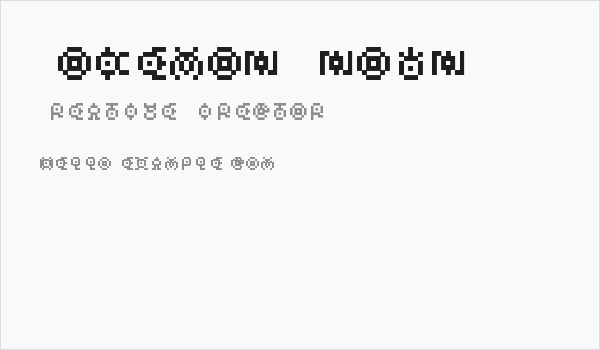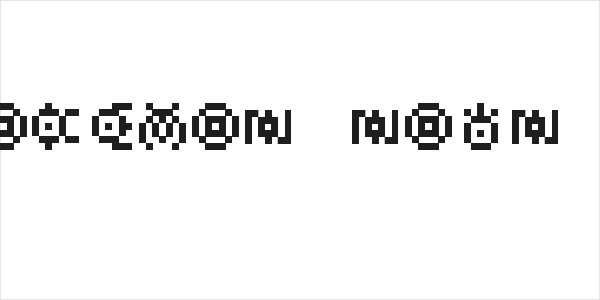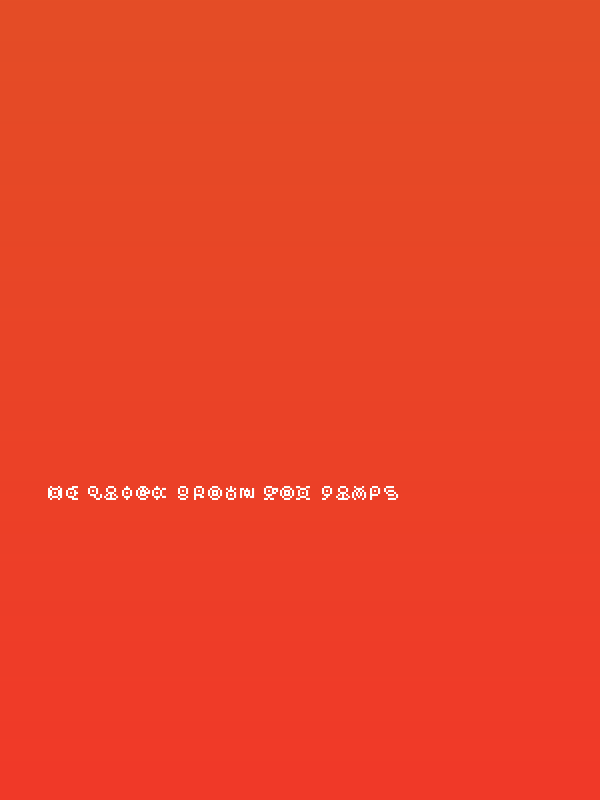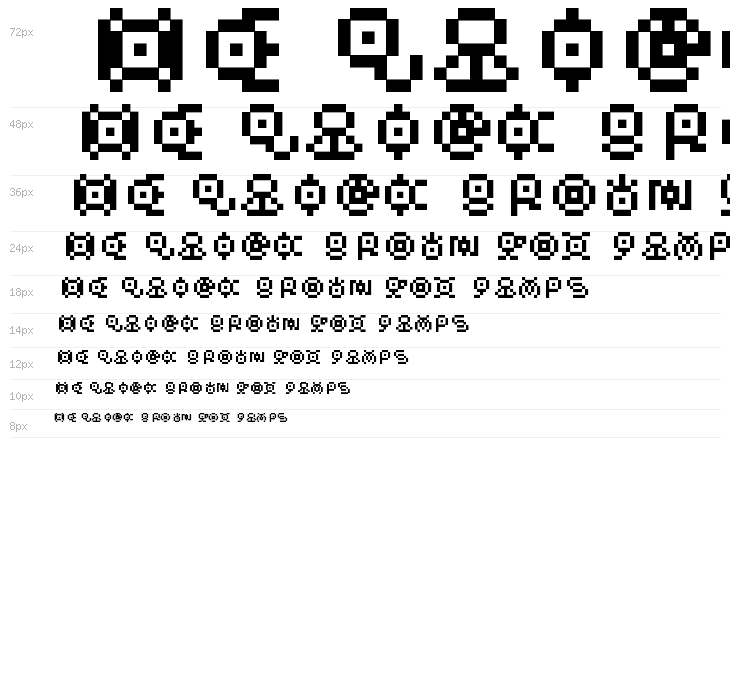
Pokemon Unown GB Font
Pokemon Unown GB Description
This font is inspired by a unique and mysterious design, resembling ancient symbols or hieroglyphs. Each character is crafted with a pixelated, blocky style, giving it a retro, digital appearance. The characters are distinct and abstract, often incorporating circular and linear elements that create an enigmatic and cryptic aesthetic. This font is not designed for readability but rather for decorative purposes, evoking a sense of mystery and intrigue. It is ideal for projects that require a touch of the unusual or otherworldly, such as themed games, puzzles, or creative artworks.
| Use Case | Logos, Decorative elements |
| Proposed Projects | Ideal for themed games, puzzles, creative artworks, or any project requiring a mysterious or cryptic aesthetic. |